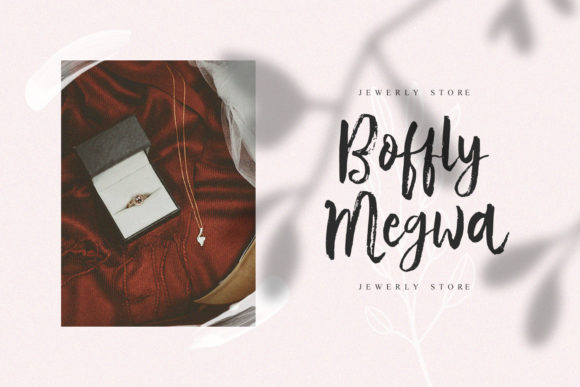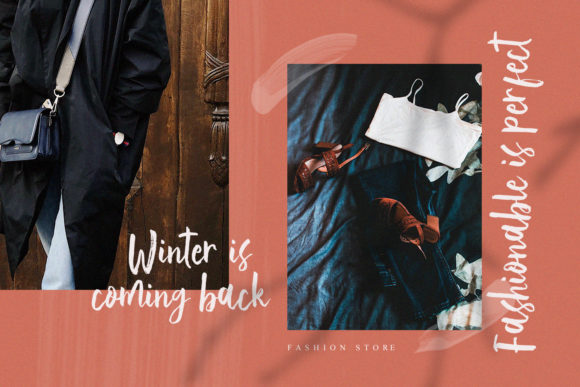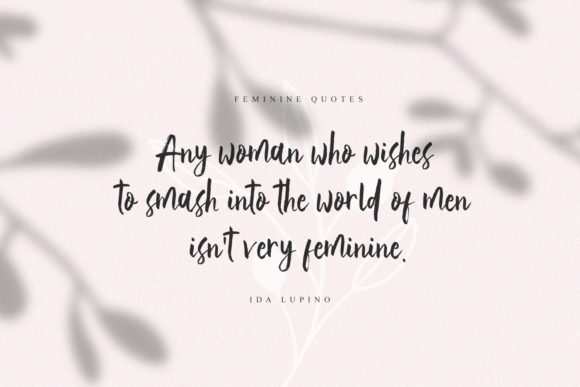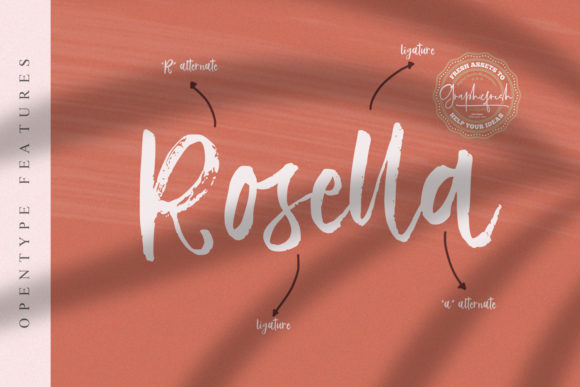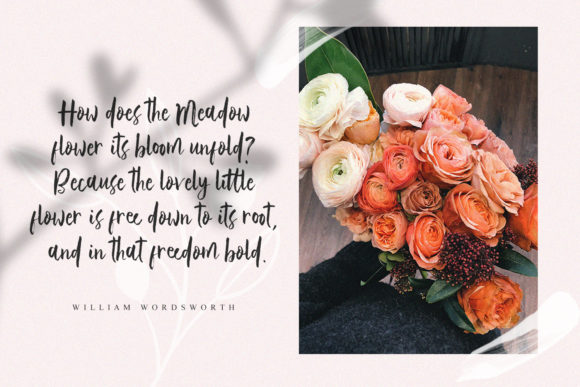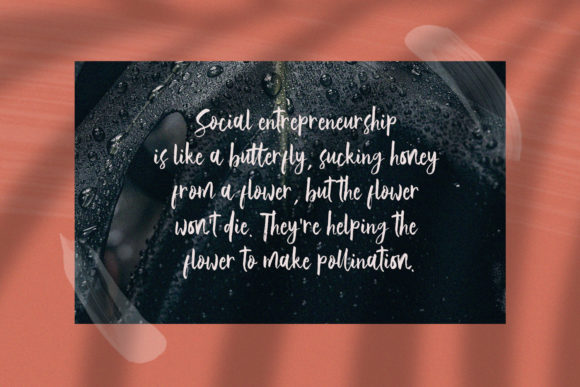
Vetto Rosella Font
About Vetto Rosella Font
Vetto Rosella is a sweet and simple script with a personal feel. Use it to add a touch of authenticity to any design project!